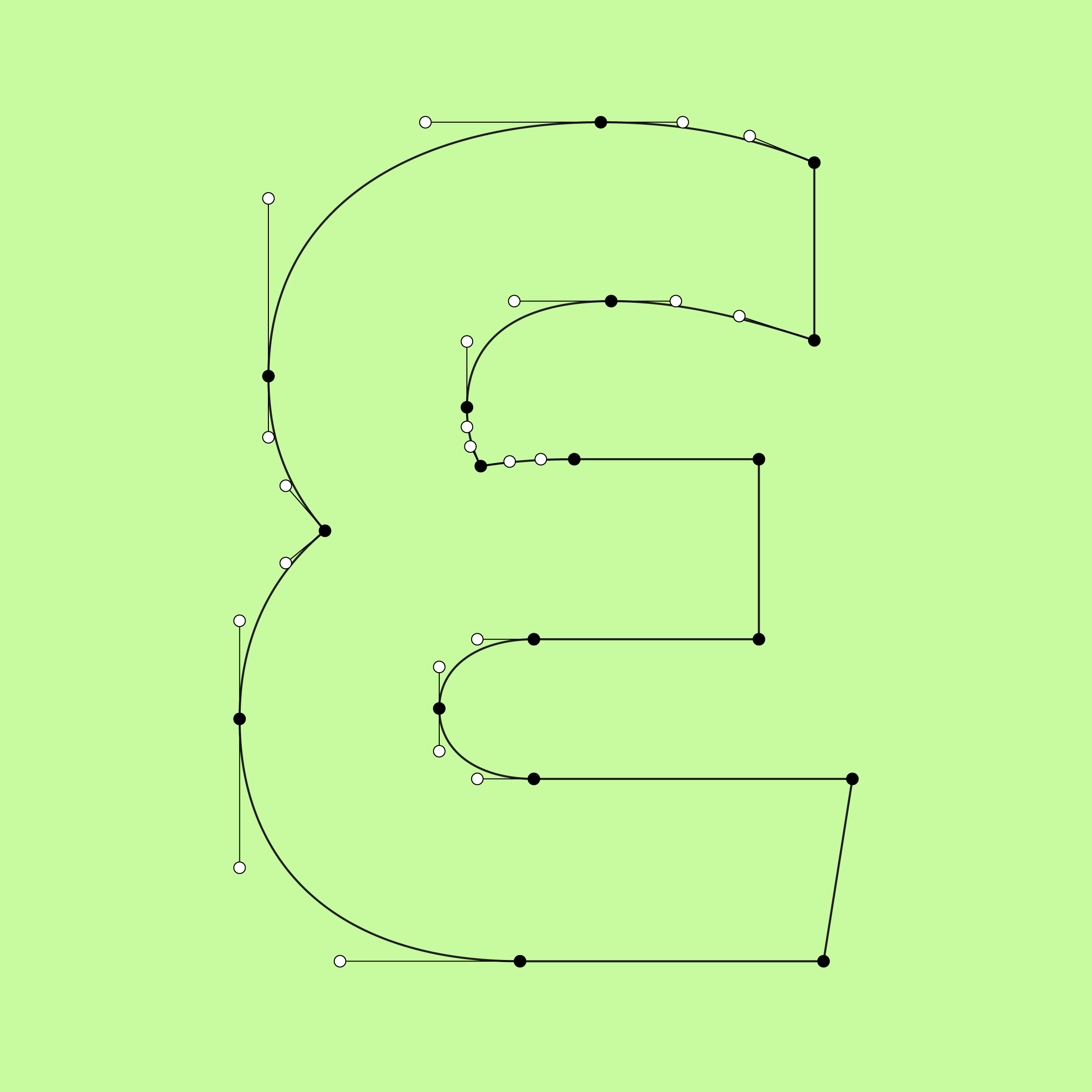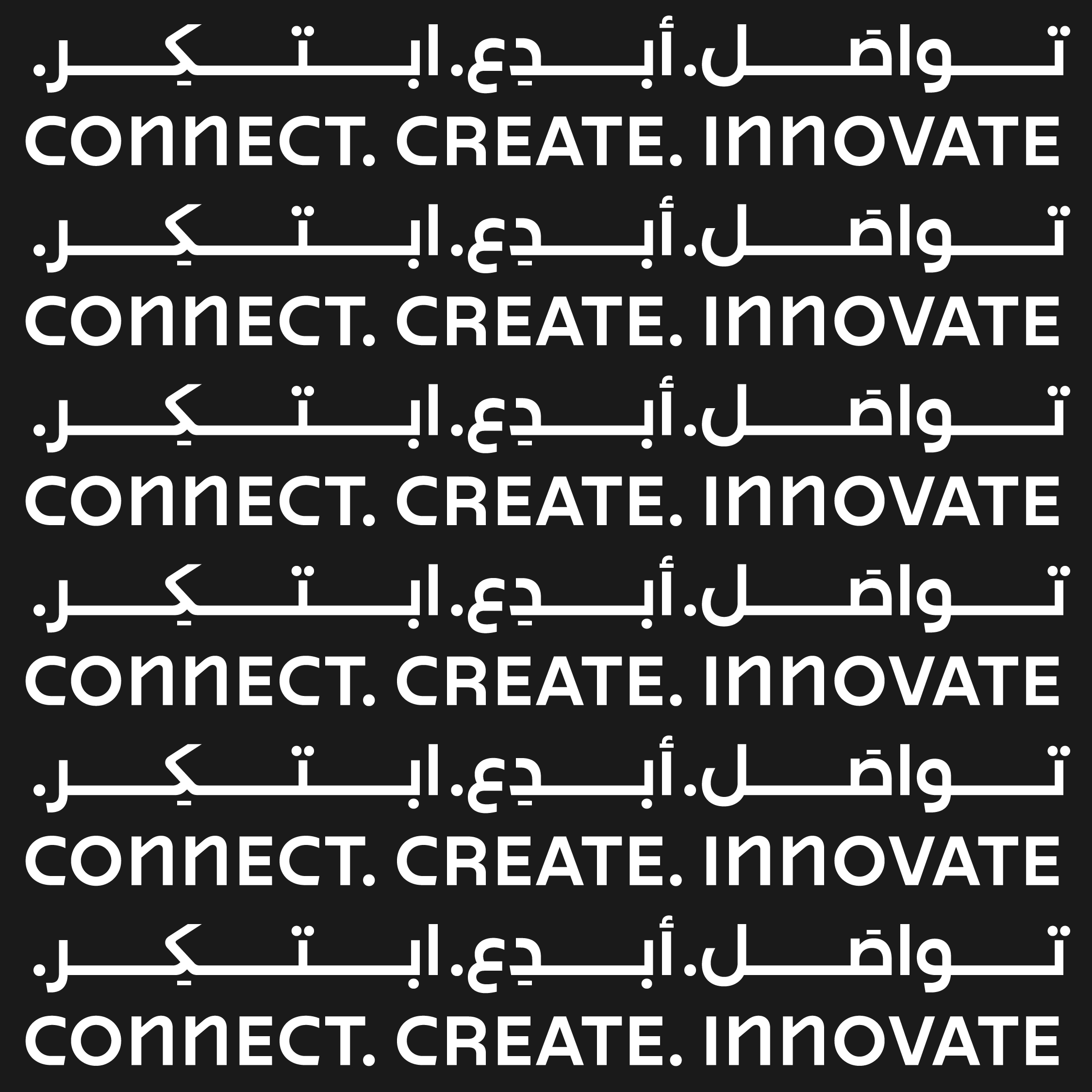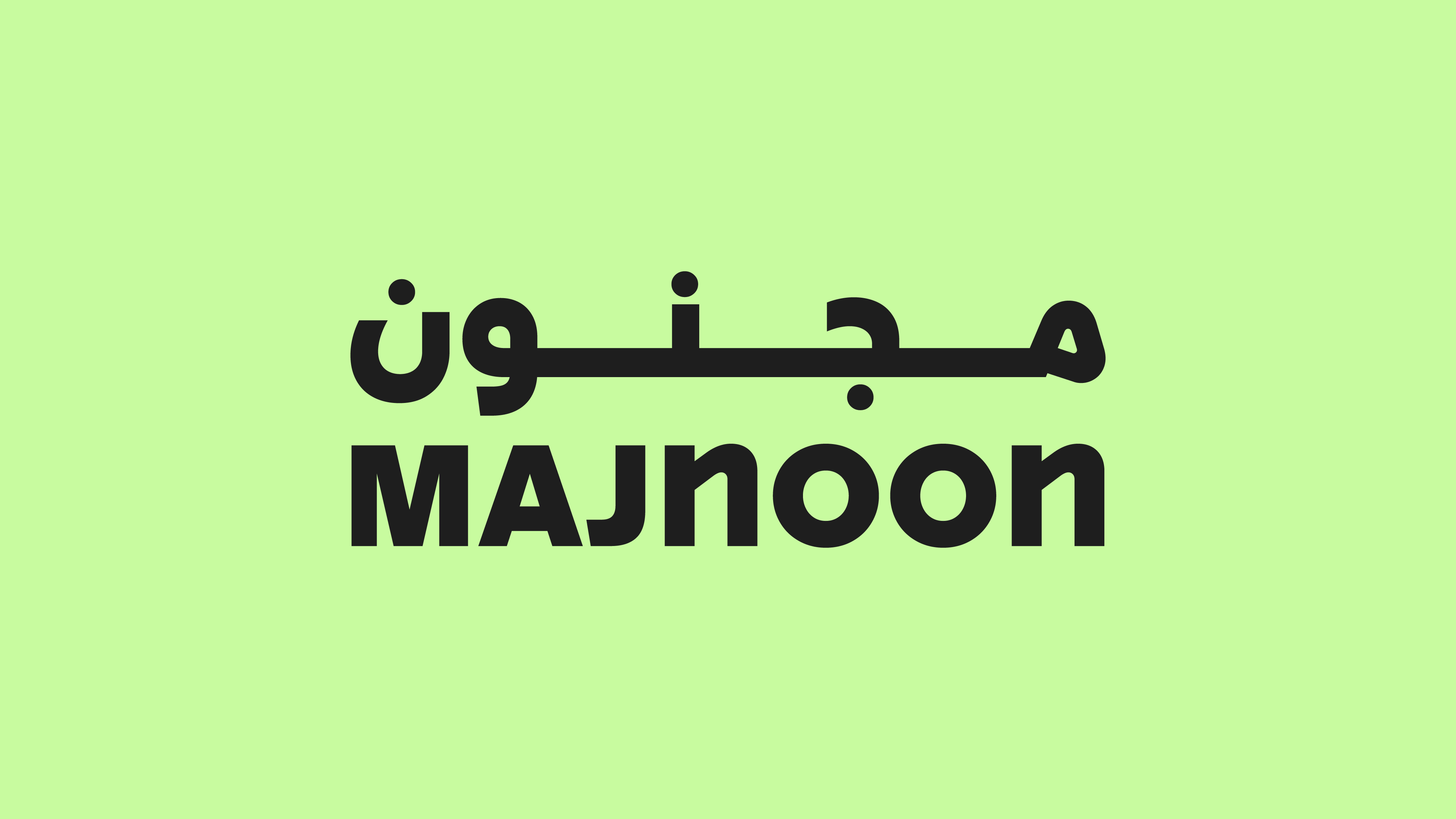
F37 Majnoon
Drawing on their multicultural design expertise, Ochre have released two Latin/Arabic fonts inspired by the Middle East.
F37 Majnoon captures the youthful exuberance and cultural amalgamation of the Middle East, with a special nod to the vibrant spirit of Dubai. The Arabic and Latin letters were designed hand-in-hand, influencing each other’s design and echoing Dubai’s fusion of heritage and innovation. F37 Majnoon comes in 7 weights, from Thin to Black. Unique characters like the ‘a’ ‘g’ and ‘م’ give the font a distinct personality. Also included are Stylistic Sets for both the Latin and Arabic that add personality or tone it down for greater control of the message.
Inspiration
F37 Majnoon
Interview
Tell us about the inspiration behind your collaboration with F37®×. If it was an unused concept, what was the potential use case for it.
Majnoon was originally designed as part of a collaboration with F37® for a large-scale residential and tech-community development in Dubai. The concept was to develop a typeface that felt modern, unique and on-brand for a development that was primarily future focussed, whilst also feeling born out of the region.
When starting the process of creating your font, what typographic conventions did you look to break or experiment with? Or were there conventions of functionality you championed?
As mentioned, a key element of the typeface was that it somehow had to feel born out of the Middle East region. The most direct way for us to do this was aesthetically; taking cues from Arabic scripts and finding interesting ways for these elements to be implemented into our own typeface whilst retaining legibility and functionality.
Now that your typeface has launched, what would be your dream project to use your F37® typeface on?
It would be amazing to see this used on the type of project it was originally designed for, A large-scale development where typography is one of the main drivers of the brand look and feel. Additionally, it would be great to see this form part of the identity for a cultural centre or event in the region.
What have you learnt through developing and creating your own typeface(s) with our F37® type designers?
Collaboration and throwing back and forth ideas is not only one of the most fun aspects of a project like this, but one of the most beneficial too.
How would you describe your typeface in three words?
Modern. Charismatic. Arabic-infused.